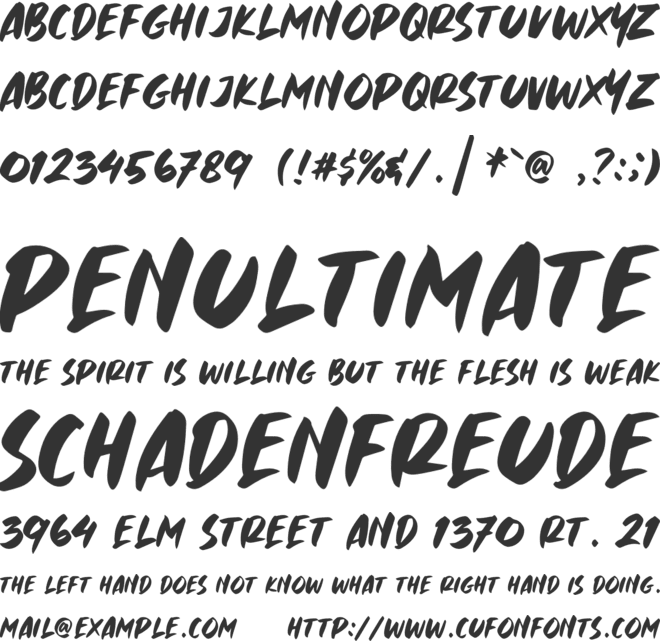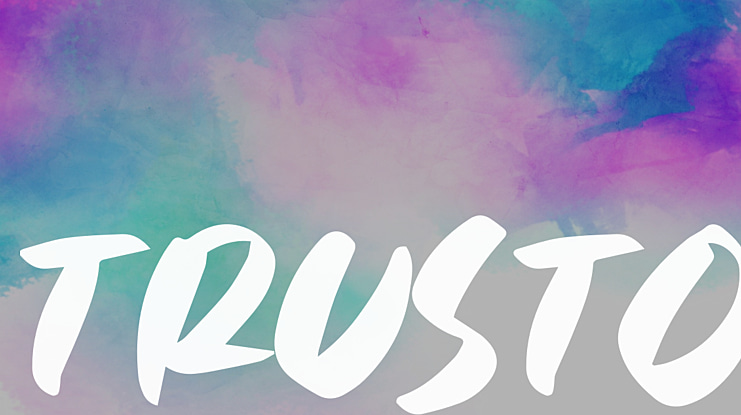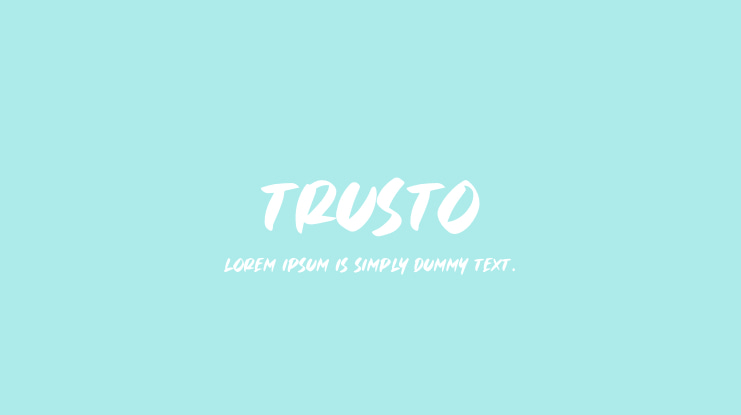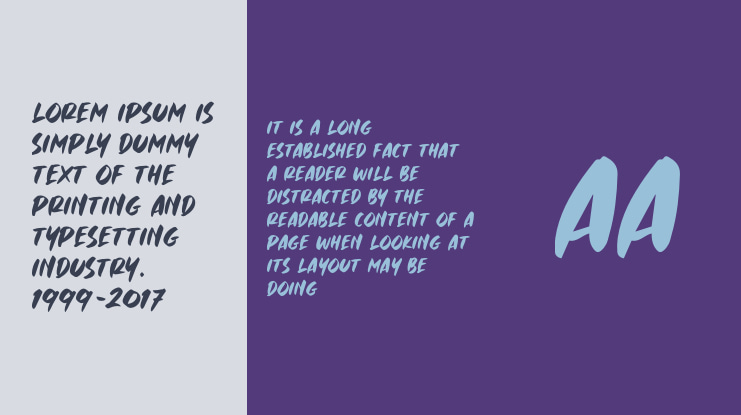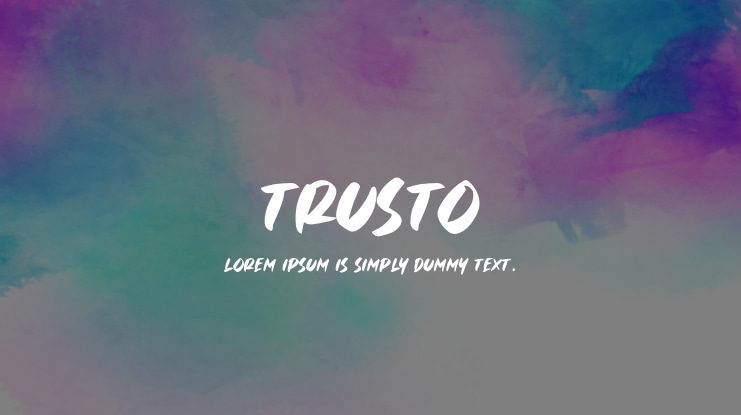
Trusto Font
Trusto is a casual hand-written font. Best for both large display and smaller lines/sub. You can use this font for poster headline, social media post, flyer, t-shirt, merchandises, logo, and etc. This font will be an eye-catch in your layout, a punch line, an emphasys, or you can combine this font with a clear sans-serif font to create modern look & feel.
Feature:
-Standard minimal English character. ------ (!"#$%&()*+,-./0123456789:;[]^`abcdefghijklmnopqrstuvwxyz{|}~¢£¥©®°ß†€)